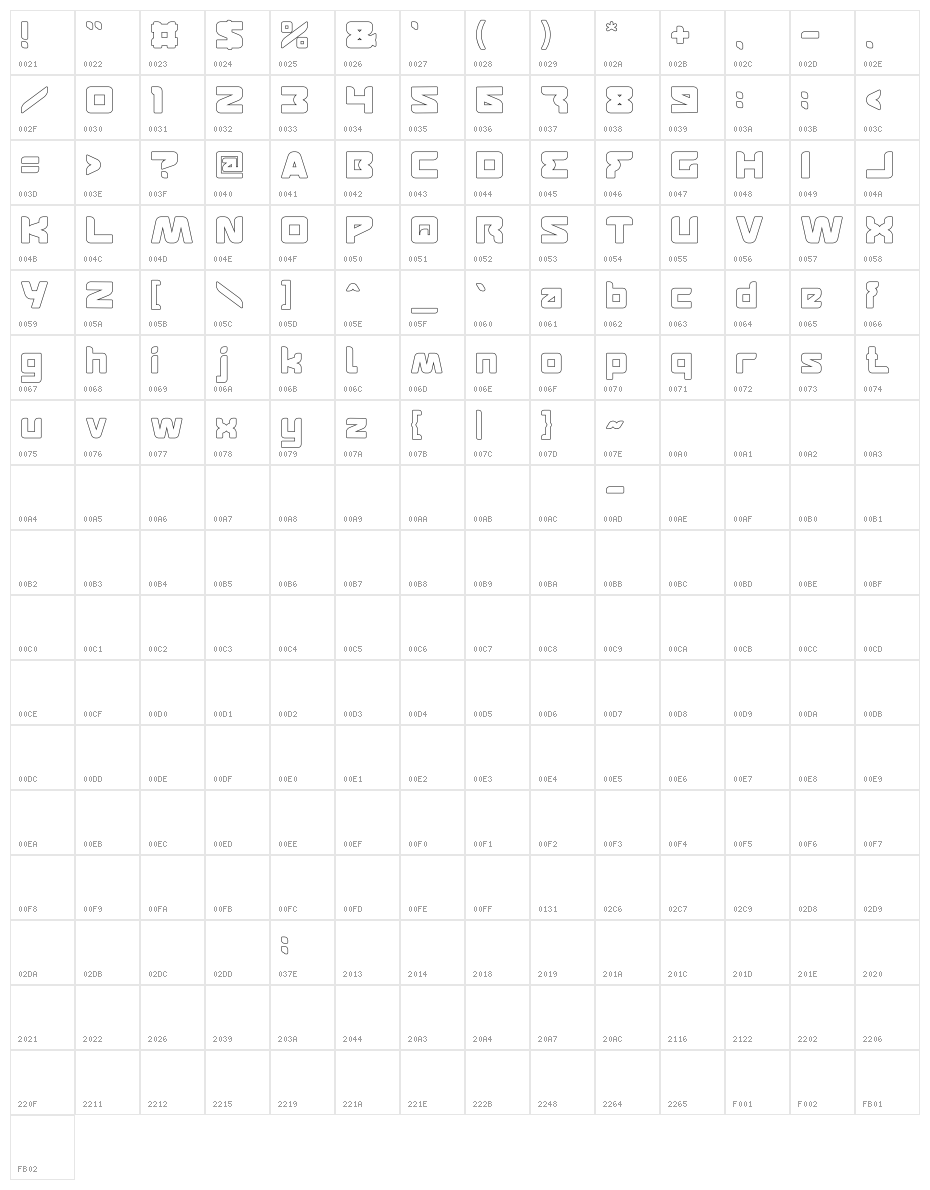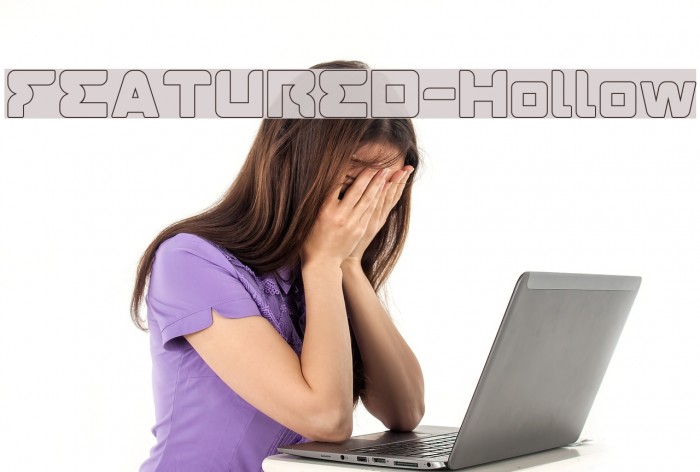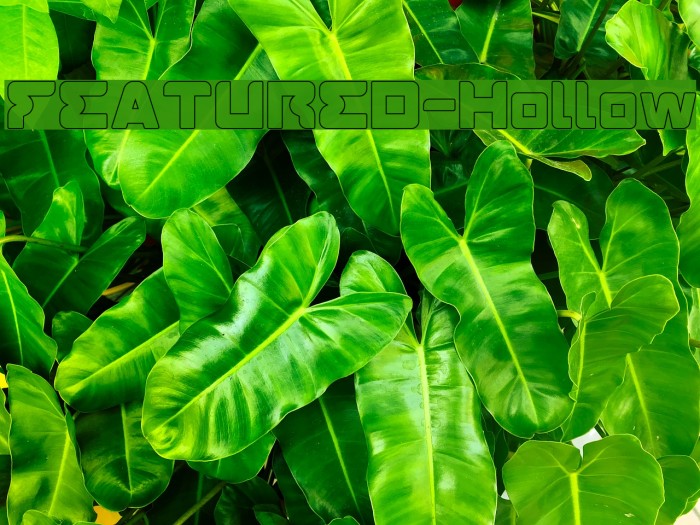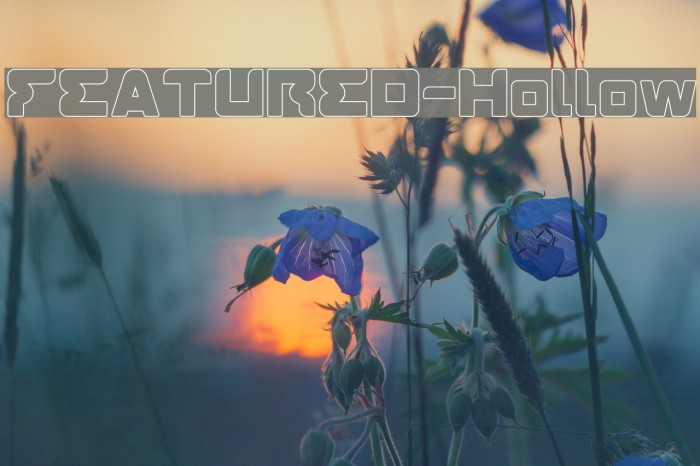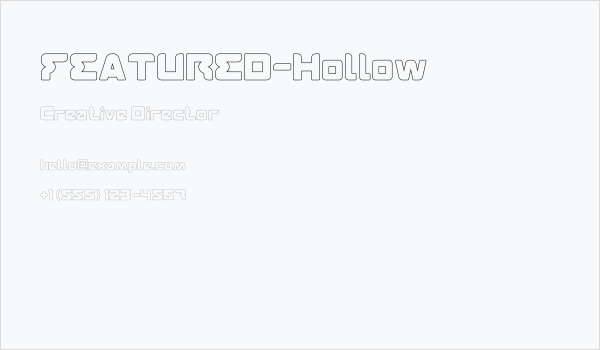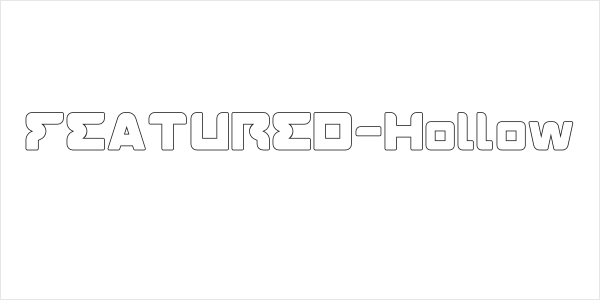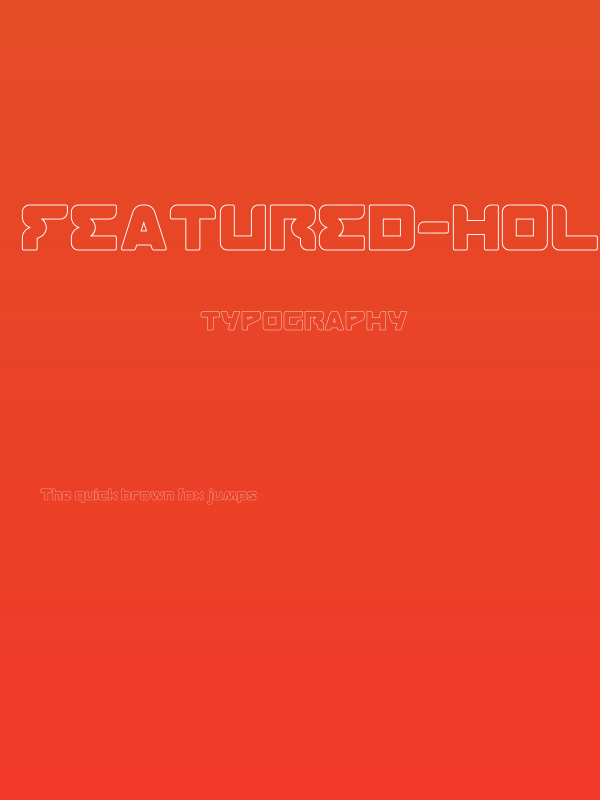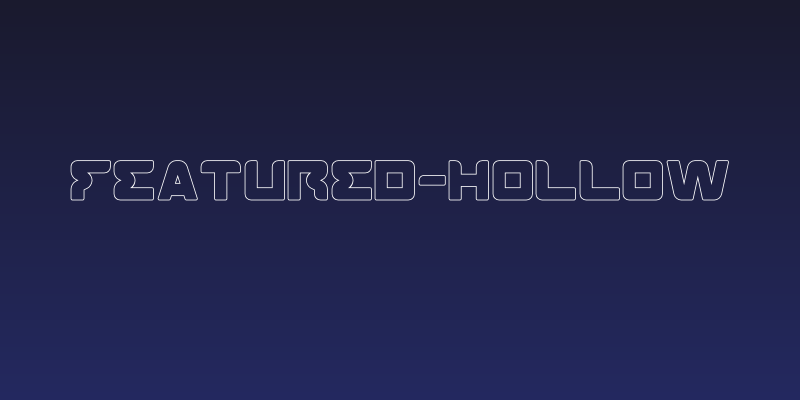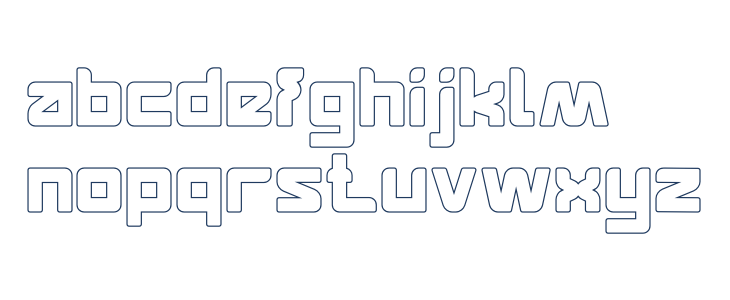
FEATURED-Hollow Font
FEATURED-Hollow Description
This font features a bold, geometric design with hollow interiors, giving it a futuristic and modern appearance. The characters are constructed with clean, angular lines and uniform stroke widths, creating a cohesive and structured look. The uppercase and lowercase letters maintain a consistent style, with a unique blend of sharp edges and rounded corners. The numerals and special characters follow the same design principles, ensuring visual harmony across all elements. This font's hollow design adds a distinctive touch, making it stand out in various applications.
FEATURED-HOLLOW UPPERCASE
FEATURED-HOLLOW LOWERCASE
FEATURED-HOLLOW OTHER CHARS
| Proposed Projects | Ideal for sci-fi themed designs, tech branding, posters, and digital media. |